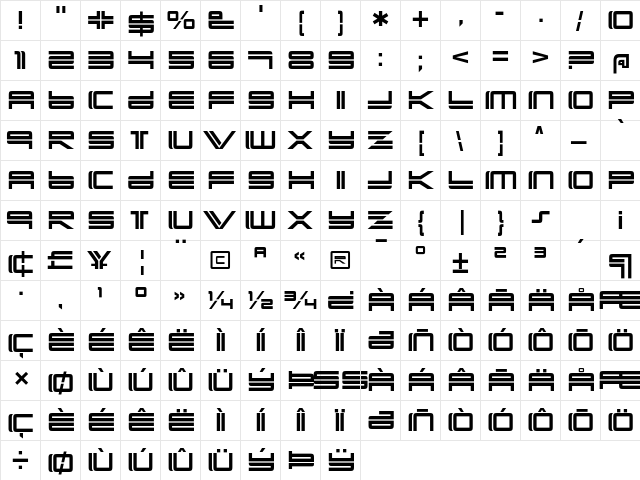
Yonder Recoil Regular
Design Context for Yonder Recoil Typeface
Yonder Recoil is a composed and adaptable typeface that performs quietly and consistently across a wide range of design contexts.